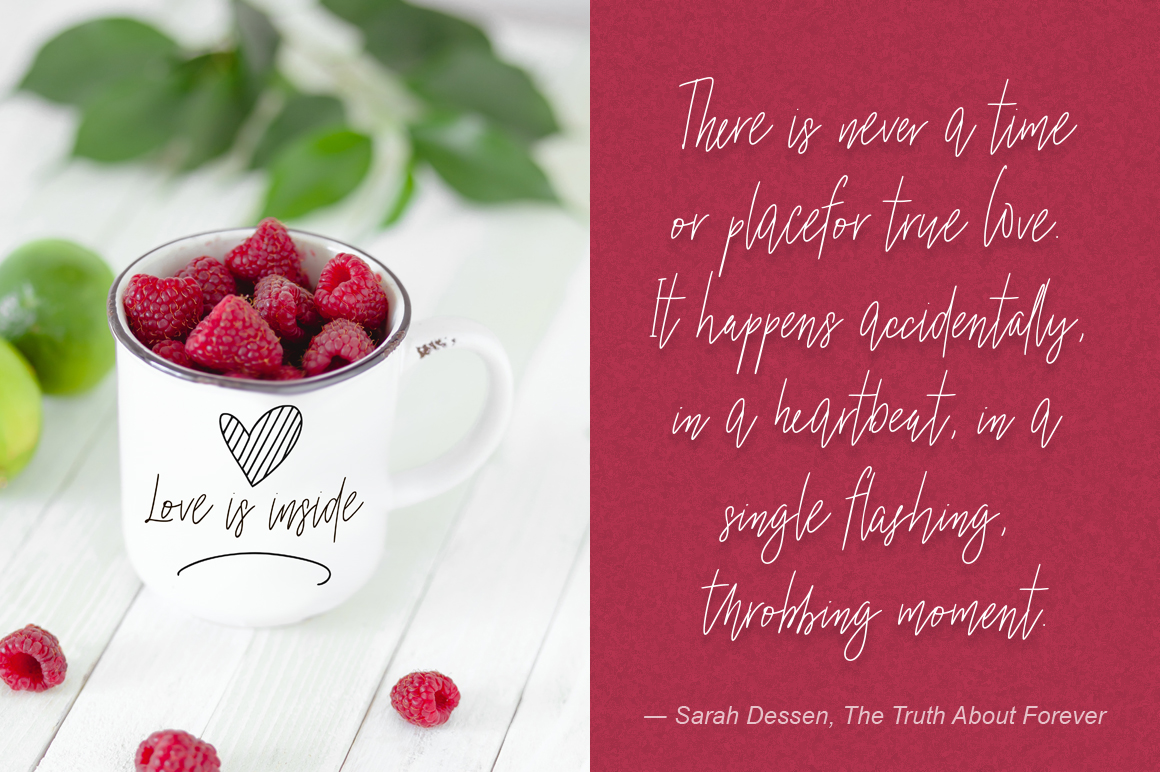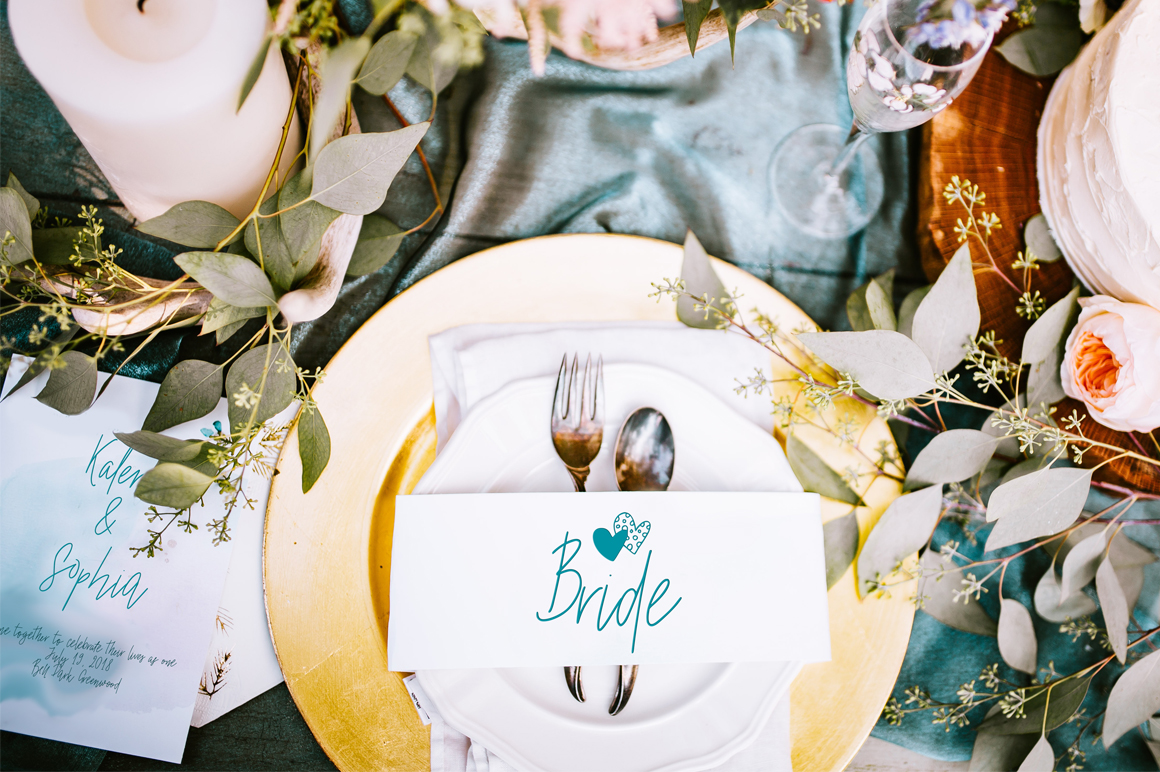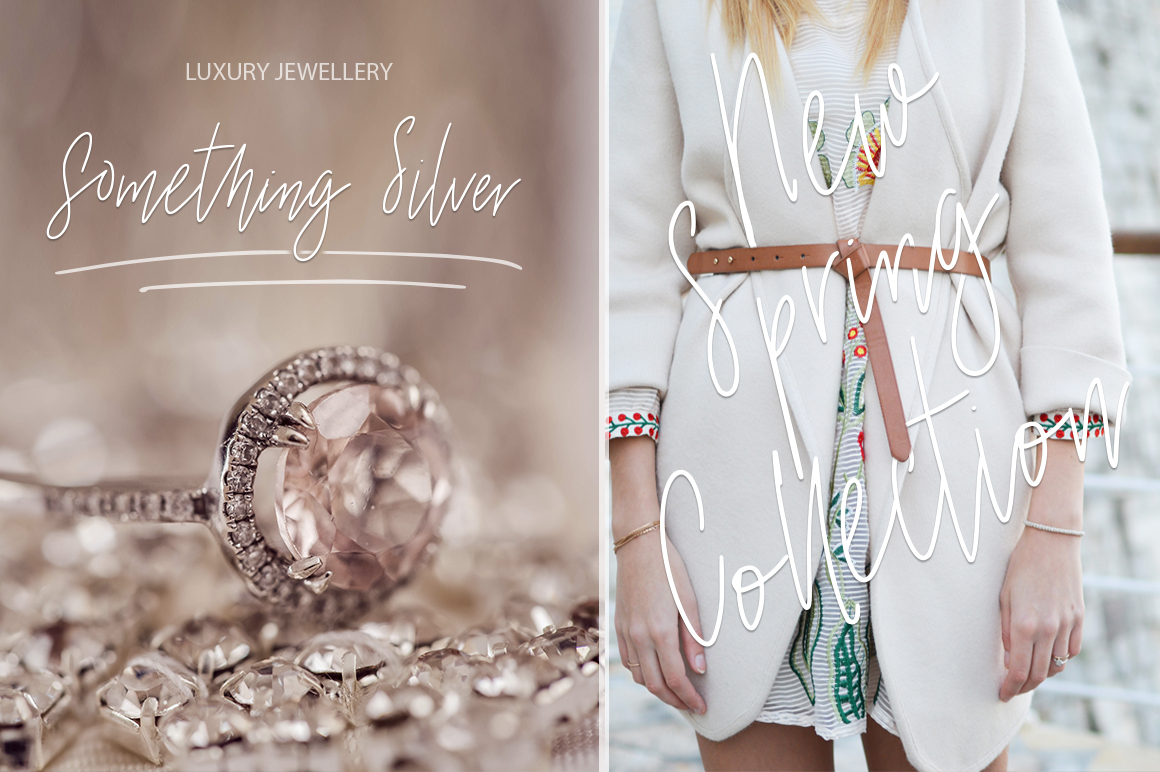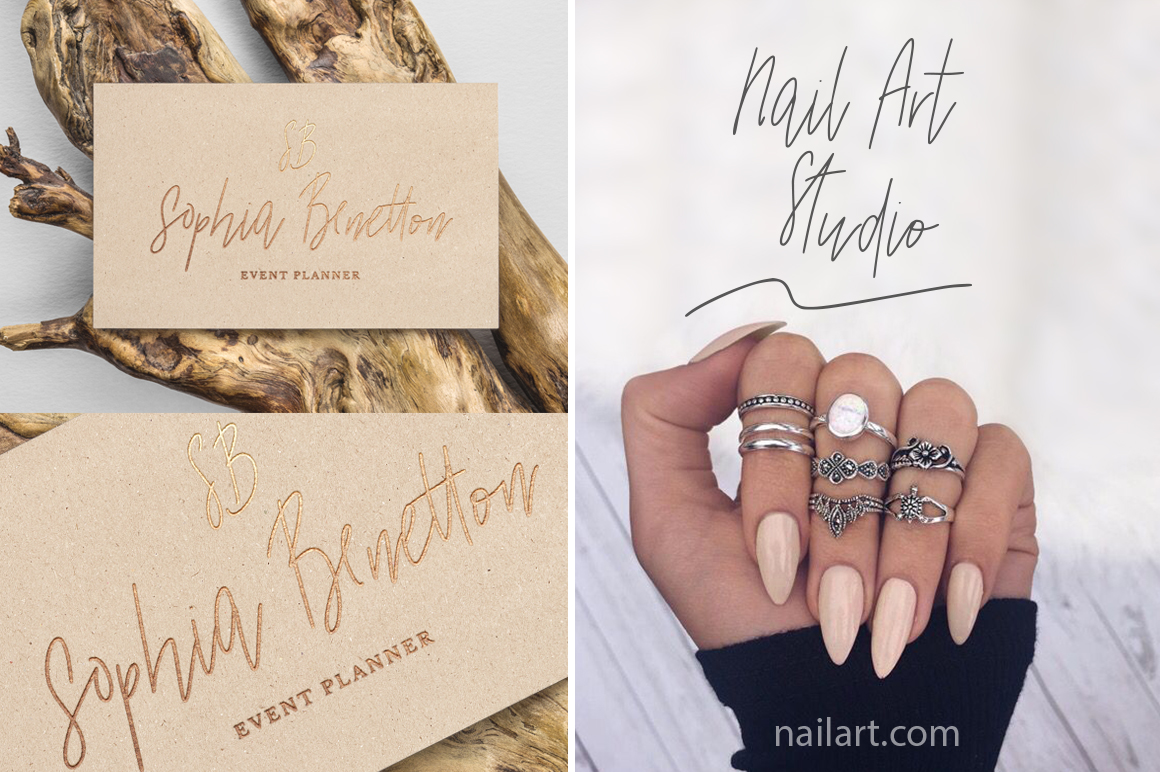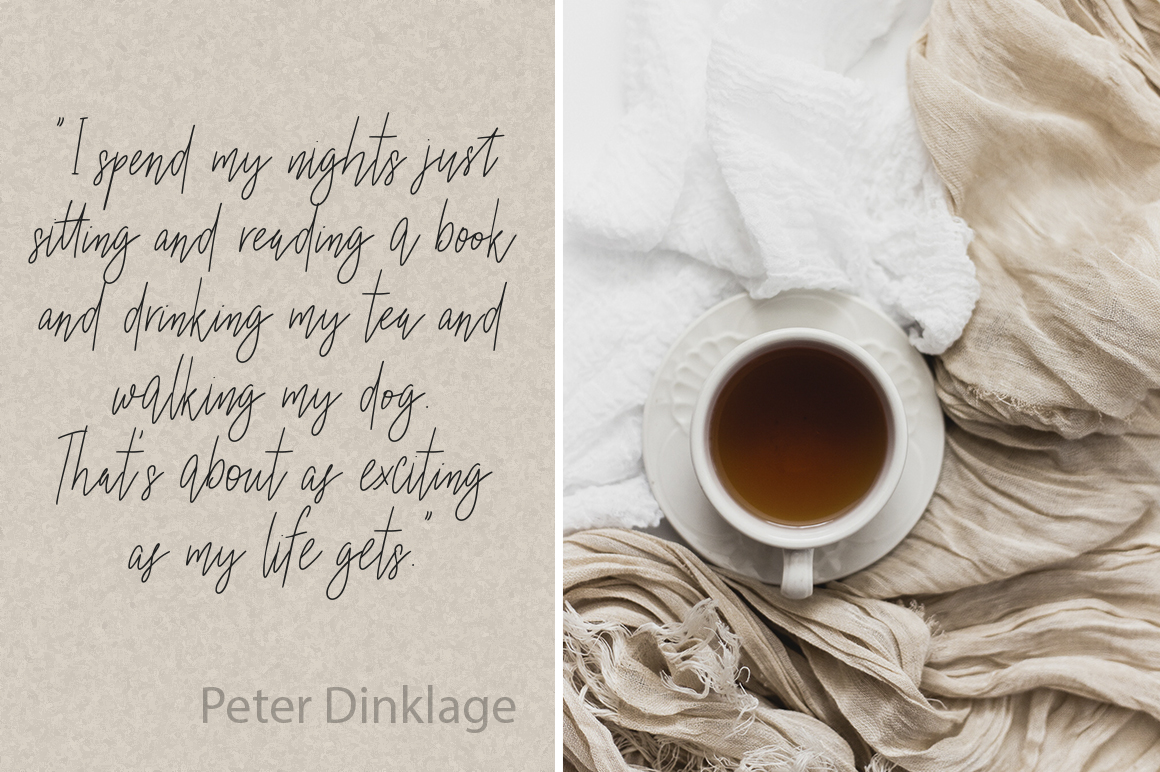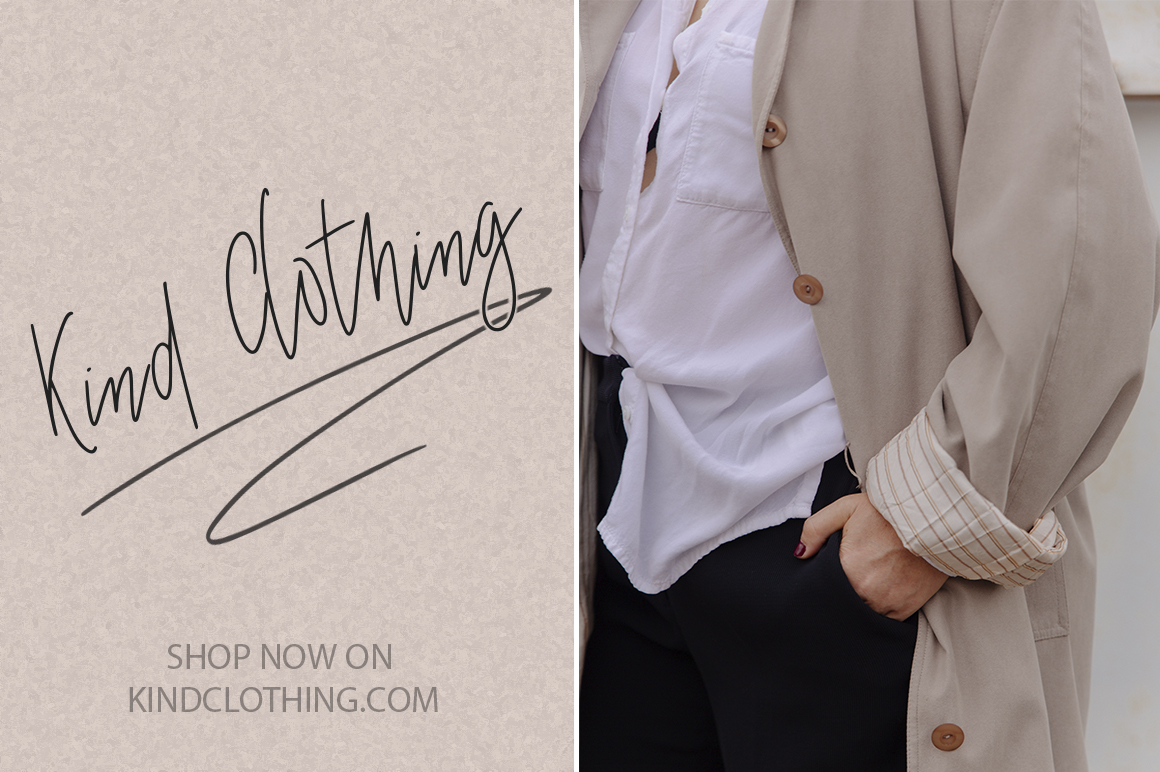
The Perfect Script for Your Next Design
You know that feeling when you stumble upon a font that just makes everything click? You start envisioning the perfect project, with the font at the forefront of your design. For many creatives, that moment came when they discovered the Beloved Font. This beautiful script signature font has a unique bouncy character that’s hard to resist.
With its incredibly natural and realistic hand-lettered style, the Beloved Font adds a touch of personality to any typographic project. Whether you’re working on a wedding invitation, a logo, or a social media campaign, this font is sure to bring your design to life. As a designer, you know how valuable a versatile and high-quality font can be. The Beloved Font is a must-have in your collection, and we’re excited to share its story with you.
Beloved Font Key Features
- Font Family: Beloved is a script font, perfect for adding a touch of elegance and sophistication to your designs.
- Size: The font family includes multiple weights, ranging from 200 to 900, allowing for flexibility in design applications.
- Resolution: Designed to work well at high resolutions, making it suitable for printing and digital displays.
- Unique Characteristics: Beloved features a unique, handwritten style with subtle imperfections, giving it a personal and emotional feel.
- Language Support: Supports a wide range of languages, including Latin, Greek, and Cyrillic scripts.
Beloved Font Review
Overall, I found “Beloved Font” to be a charming and endearing script font. Here’s what I liked about it: ✨
- Its friendly, approachable vibe makes it perfect for personal projects or websites that need a touch of warmth.
- The font’s flowing lines and subtle flourishes add a sense of elegance and sophistication.
- The character set is extensive, making it suitable for a wide range of languages and applications.
- The font may be too ornate for certain applications, such as body text or headlines where readability is crucial.
- The weight variations can be inconsistent, which may affect the overall coherence of a design.
- The font’s width can vary significantly, which may lead to uneven text alignment.
Despite its limitations, I believe “Beloved Font” is a lovely addition to any font library. Its charm and character make it perfect for projects where a personal touch is needed. While it may not be the best choice for every design, it’s certainly a great option for those looking to add a touch of whimsy and elegance to their work.
Tips for Getting the Most Out of Beloved Font
Beloved Font is a versatile font that works well for both body text and headings. To get the most out of it, use it for:
1. Titles and headings to create a consistent look and feel.
2. Body text to create a clear and readable format.
3. Emphasis text to draw attention to important information.
Beloved Font is commonly used for:
1. Branding and marketing materials.
2. Digital products and e-books.
3. Blog posts and articles.
Alternatives to Beloved Font for Designers
Beloved Font is a popular choice among designers due to its elegant and sophisticated appearance. However, there are several alternatives that can provide similar or better results in certain situations.
Playfair Display is a high-end serif font that is perfect for creating a luxurious and elegant atmosphere. It is ideal for use in titles, headings, and other display typography where a touch of sophistication is required. Playfair Display is similar to Beloved Font in its elegant appearance, but it has a more formal and traditional feel.
Great Vibes is a modern script font that is perfect for creating a friendly and approachable atmosphere. It is ideal for use in titles, headings, and other display typography where a touch of personality is required. Great Vibes is similar to Beloved Font in its elegant appearance, but it has a more casual and relaxed feel.